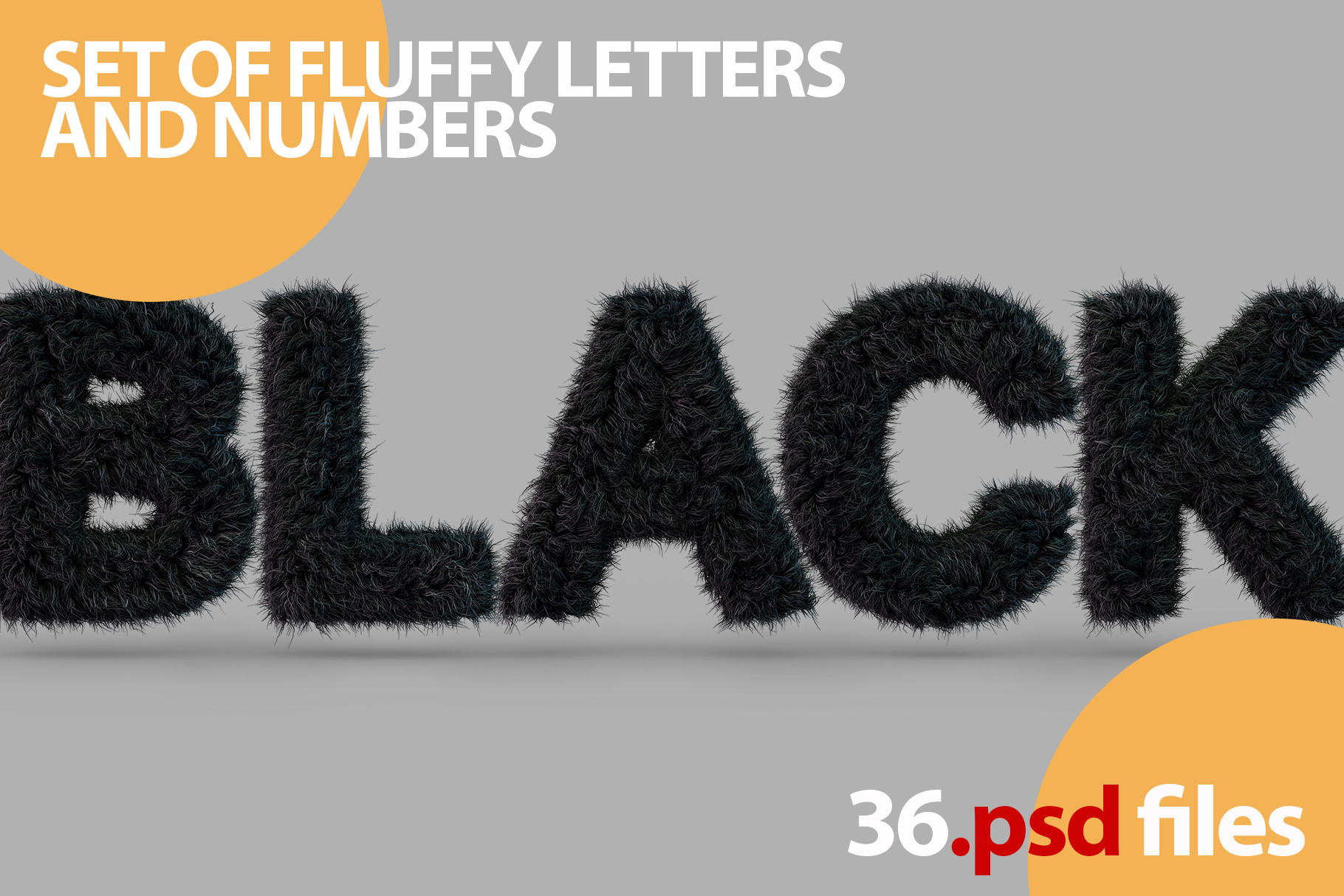
Uppercase fluffy, furry BLACK font
Uppercase BLACK fluffy and furry font made of fur texture for poster printing, branding, advertising. 3D rendering
Set of letters, numbers and symbols on transparent background.